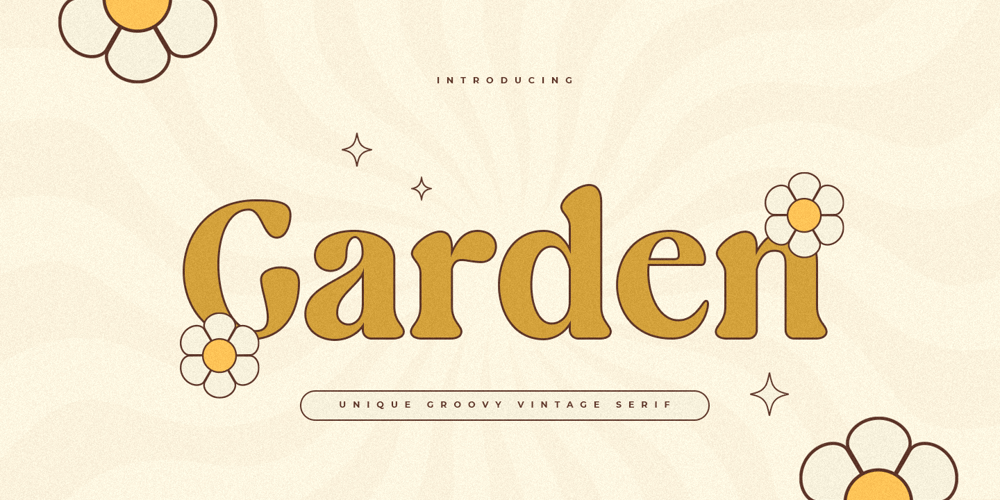
Garden Style
Garden Style font
Garden Style Font Family was designed by Zamroni Hamzah and published by Sensatype Studio. Garden Style contains 2 styles and family package options. Garden is an Unique Groovy Vintage Serif FontA New Groovy Retro font that we created special for Unique branding needs, with extra alternates in unique style that ready to add value of your brand. It’s so nice to leverage designer or product owner that need solutions to make their design look more unique and vintage.Garden Unique Groovy Vintage Serif Font ready with: Lowercase and Uppercase characters Regular and Bold Style Numbers and Punctuations Preview as a inspirations that you can do with Garden font Available for PC and Mac Wish you enjoy our font.